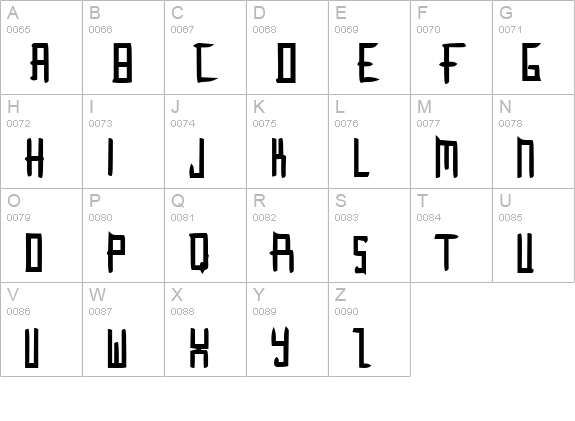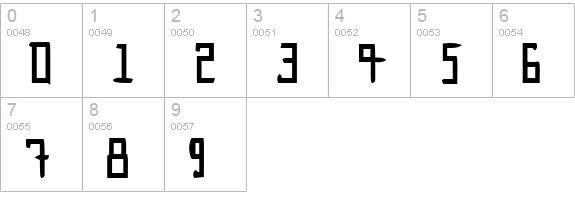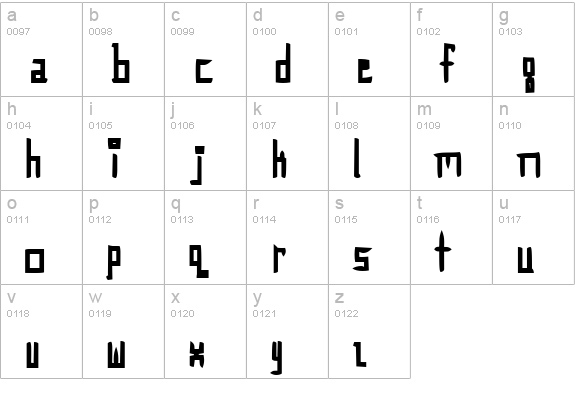
Innie Outtie Font Details
Introducing the mesmerizing Innie Outtie font, a stunning display typeface that effortlessly captures attention with its unique and captivating design. This font is the perfect blend of elegance and quirkiness, making it suitable for a wide range of design projects, from logo design to packaging and beyond. The Innie Outtie font features a delicate balance between smooth curves and sharp edges, creating a visually striking and dynamic appearance. Its playful yet sophisticated style adds a touch of personality to any design, making it stand out from the crowd. But what truly sets the Innie Outtie font apart is its versatility and adaptability. Whether you're aiming for a modern and edgy look or a more classic and refined aesthetic, this font effortlessly adapts to suit your needs. Its wide range of weights and styles offers endless possibilities, allowing you to create a truly customized and memorable design. And the best part? Innie Outtie font is absolutely free! That's right, you can download this incredible font without spending a dime. Simply head over to FontsMarket.com and grab your copy today. Whether you're a professional designer or a creative enthusiast, this font is a must-have addition to your collection. Don't miss out on the opportunity to elevate your designs with the Innie Outtie font. It's the perfect fusion of beauty, versatility, and affordability. Download it now and let your creativity soar to new heights.